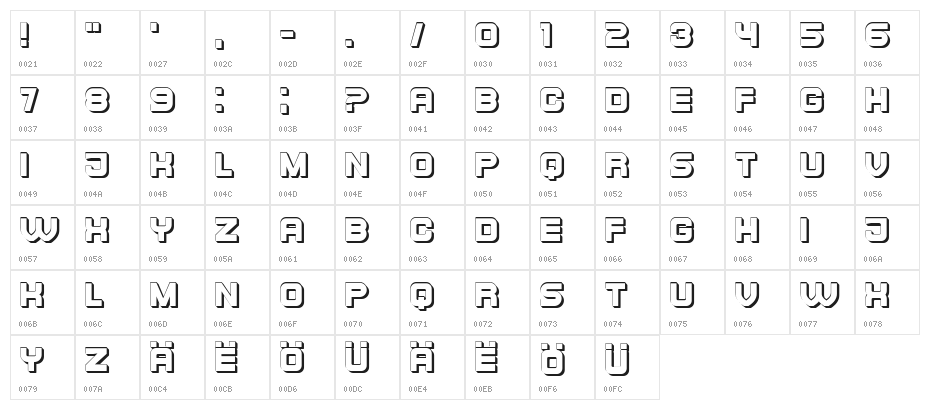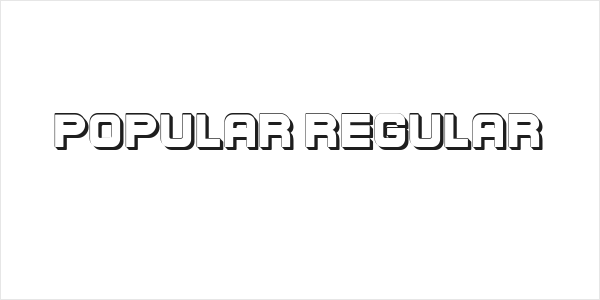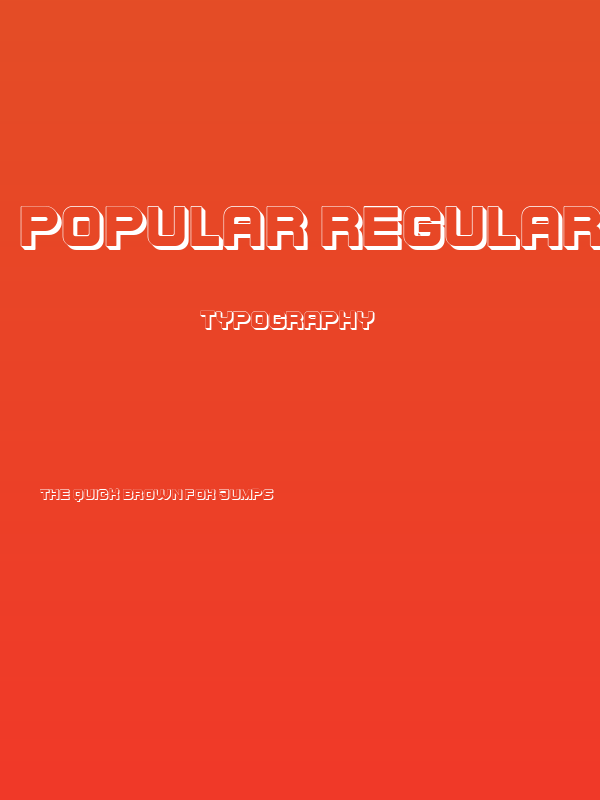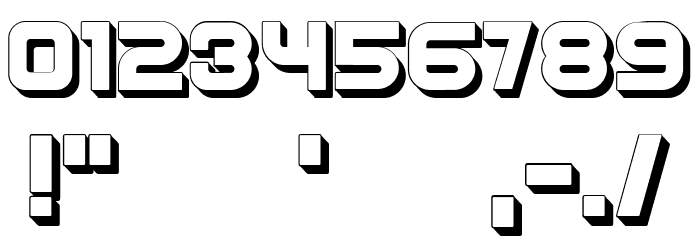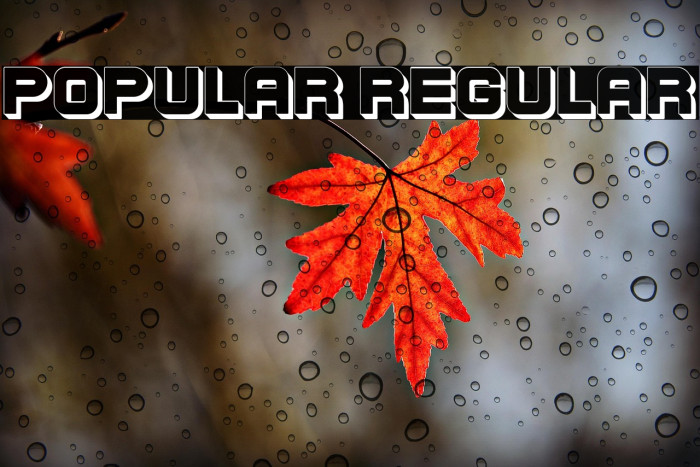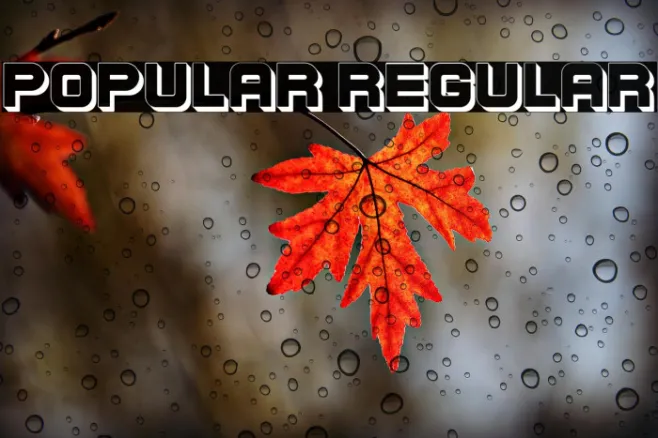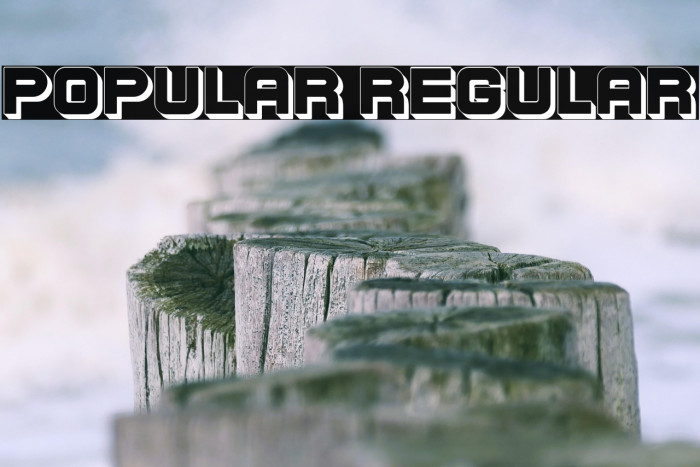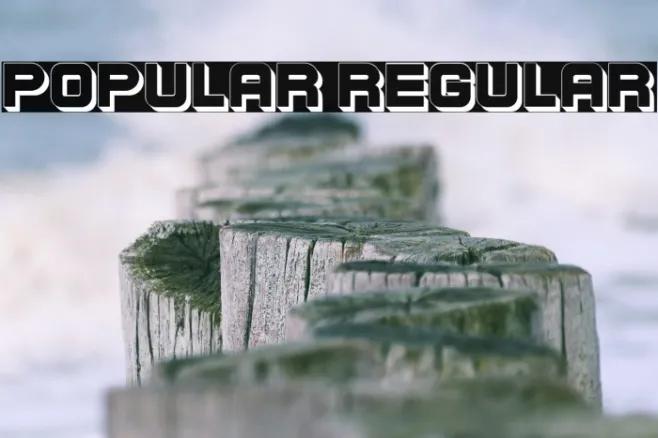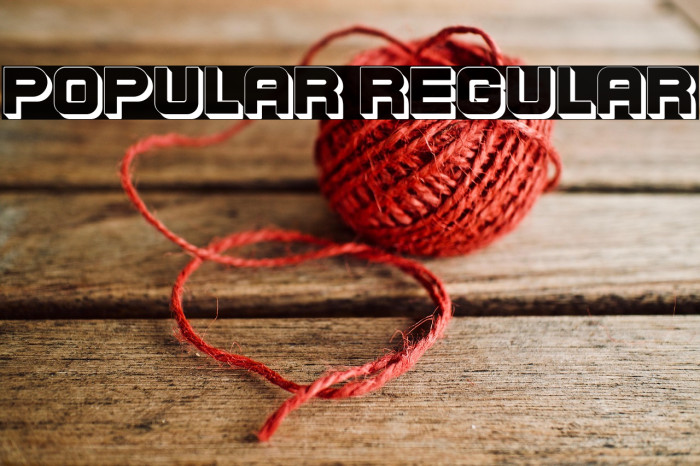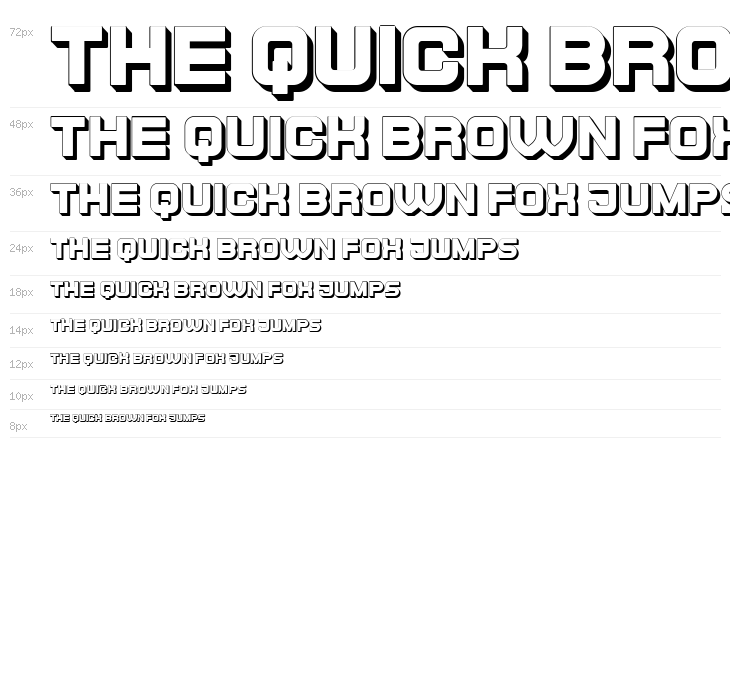
Popular Regular Font
Popular Regular Description
This font features a bold, three-dimensional appearance with a distinct shadow effect that gives it a striking, impactful look. The characters are uppercase and have a geometric, blocky style that emphasizes their boldness. The shadowing creates a sense of depth, making the letters appear as if they are raised off the page. The font's design is clean and modern, with a uniform thickness throughout each character, contributing to its strong visual presence. The numbers and special characters maintain the same bold, shadowed style, ensuring consistency across all elements. This font is ideal for making a statement and drawing attention, suitable for various creative applications.
| Proposed Projects | Ideal for posters, headlines, logos, and any design needing a bold, attention-grabbing font. |